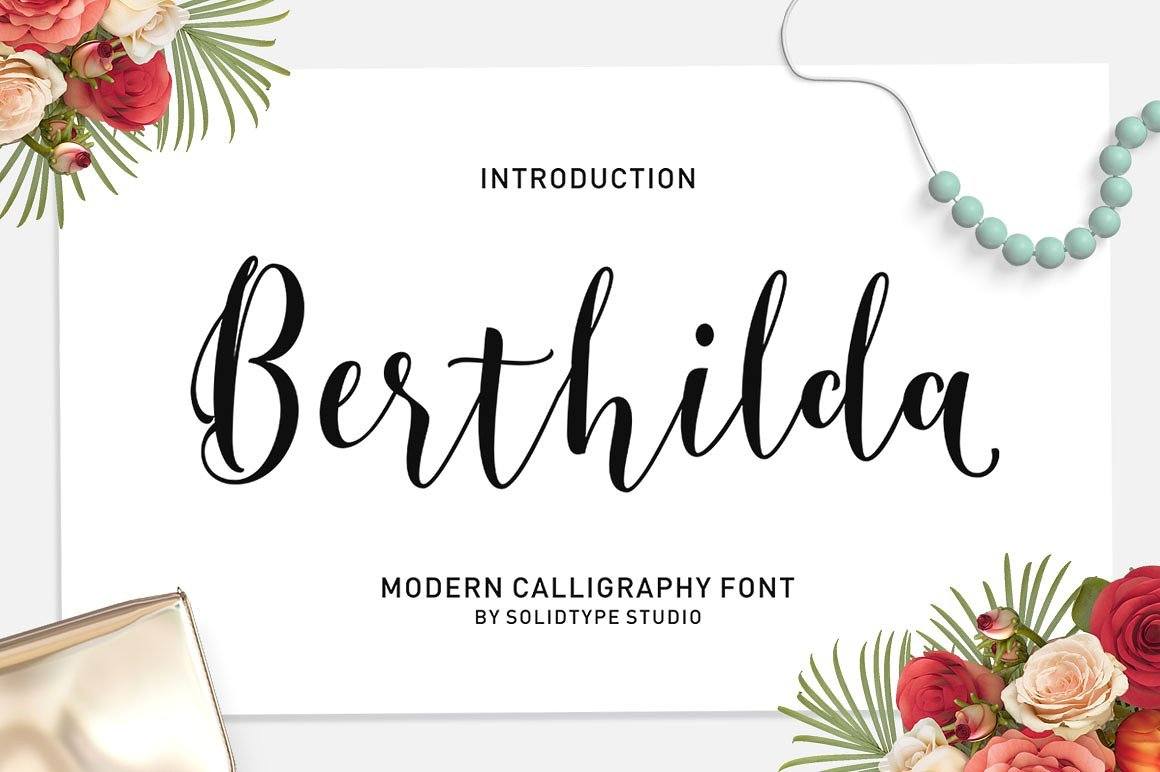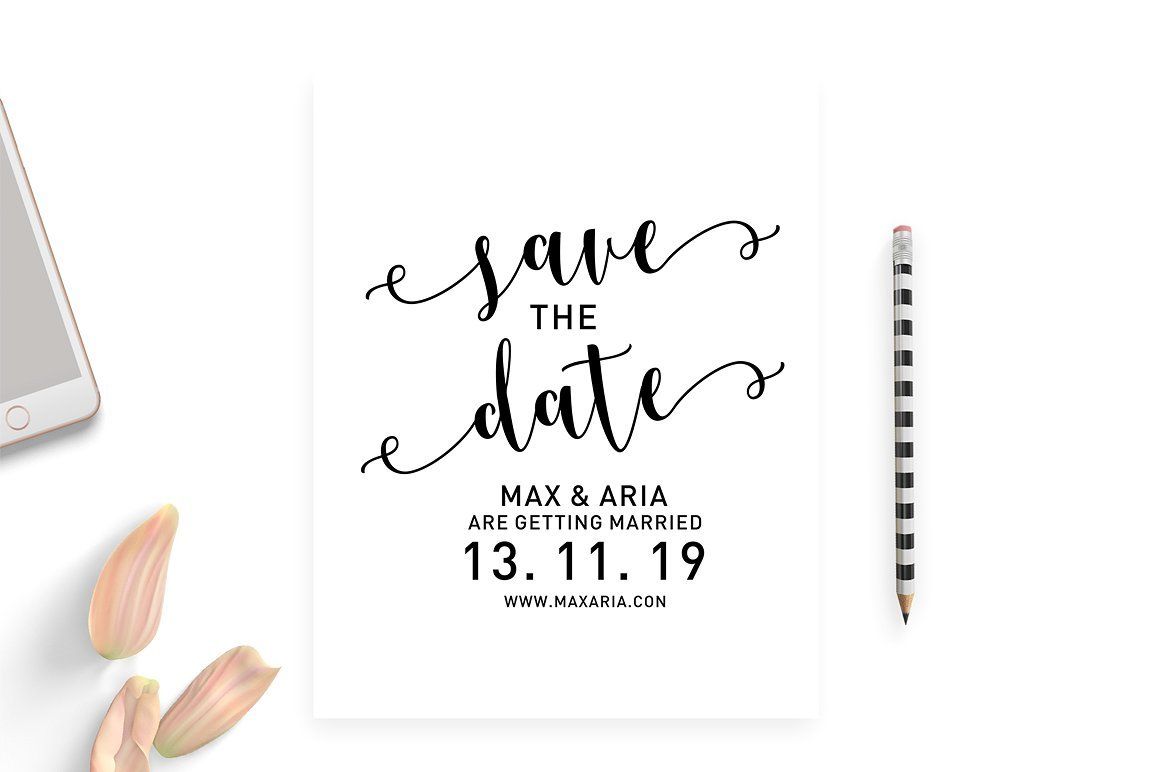
About Berthilda Script
Say hello to Berthilda Script – A contemporary calligraphy, with a vintage feel, style calligraphy with moving baseline and elegant touch. That makes the font look fabulous! Can be used for various purposes.such as headings, signature, logos, wedding invitation, t-shirt, letterhead, signage, lable, news, posters, badges etc. Features 350+ glyphs and 179 alternate character . including initial and terminal letters, alternates, ligatures and multiple language support. Files included: Berthilda Script.otf Berthilda Script.ttf To enable the OpenType Stylistic alternates, you need a program that supports OpenType features such as Adobe Illustrator CS, Adobe Indesign & CorelDraw X6-X7, Microsoft Word 2010 or later versions. These are all coded with PUA Unicode. Mac users can use Font Book and Windows users can use Character Map to view and copy any of the extra characters to paste into your favourite text editor/app. If you have any questions or problems, please don’t hesitate to message me.